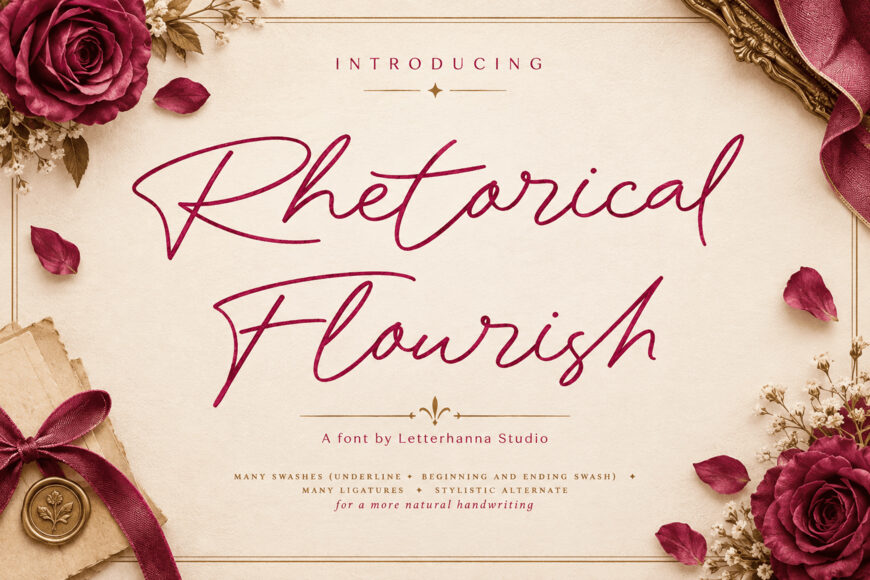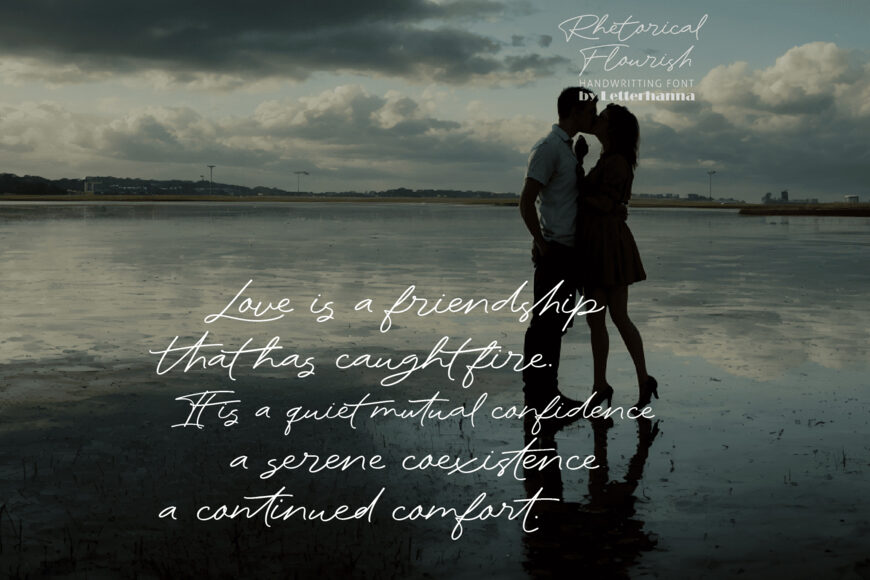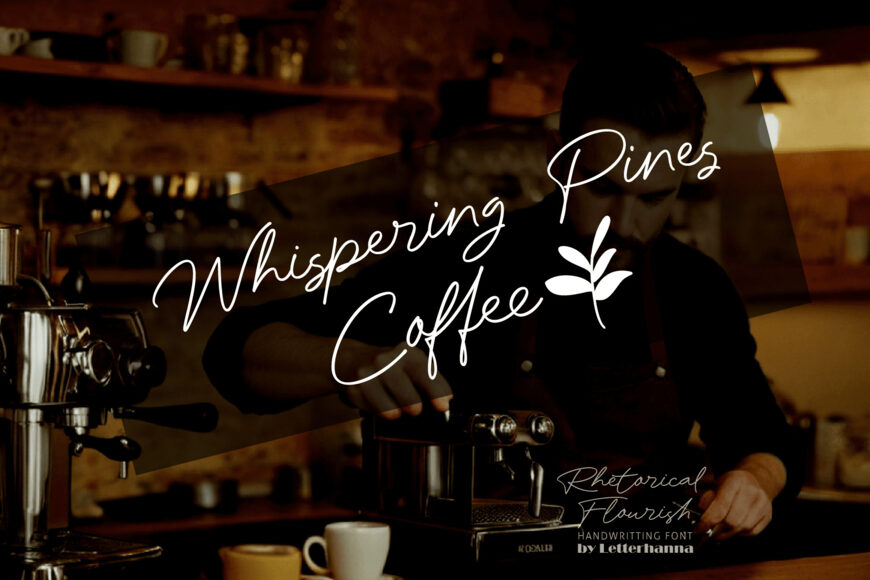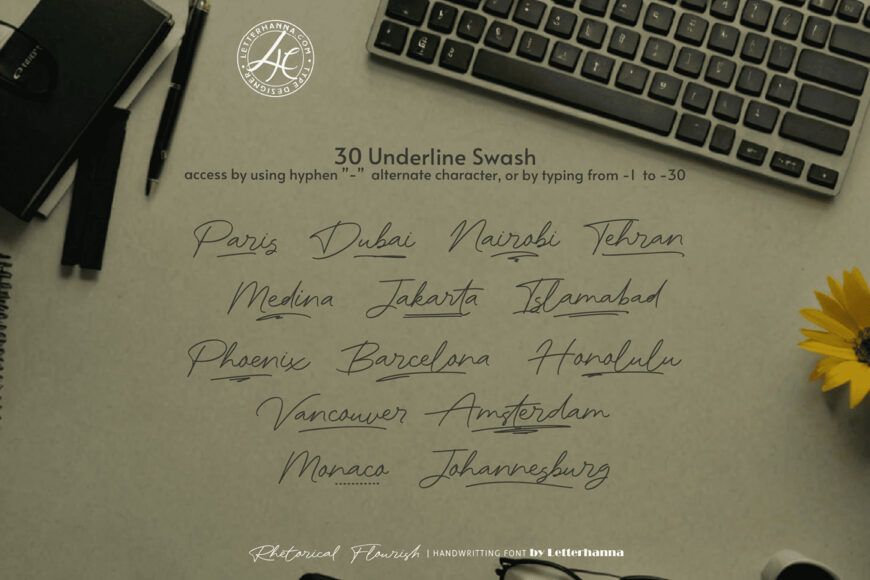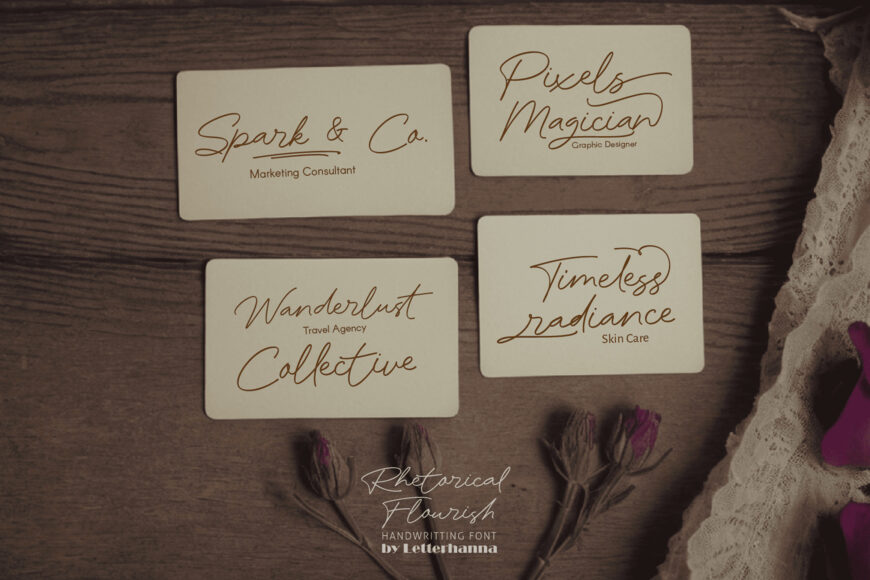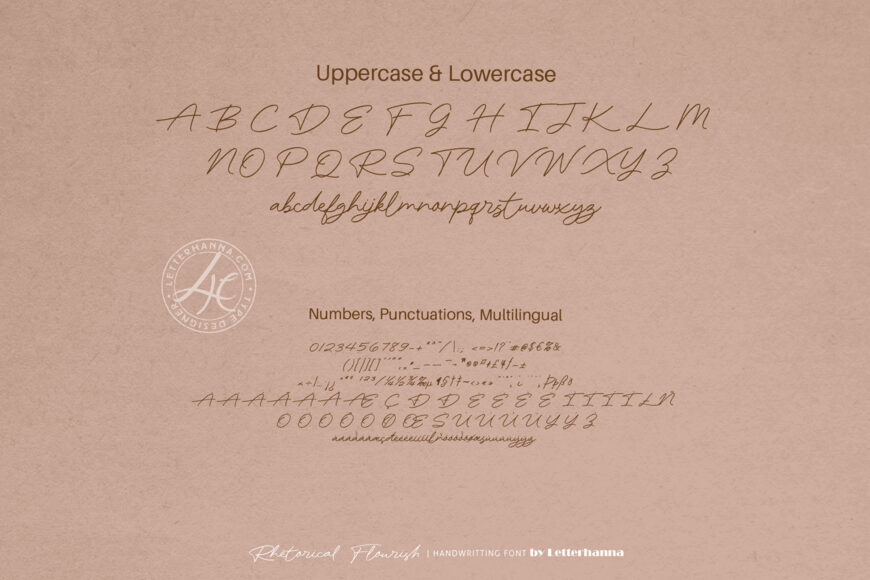
Unleash the power of persuasion and captivate your audience with Rhetorical Flourish, our newest typeface designed to add drama and impact to your written word. Rhetorical Flourish isn’t just a font; it’s a statement. Each letter boasts graceful curves and elegant flourishes, drawing the eye in and demanding attention.
Whether you’re crafting a powerful presentation, a captivating social media post, or a timeless piece of marketing material, Rhetorical Flourish ensures your message leaves a lasting impression. Let your words flourish with this unique and expressive font.